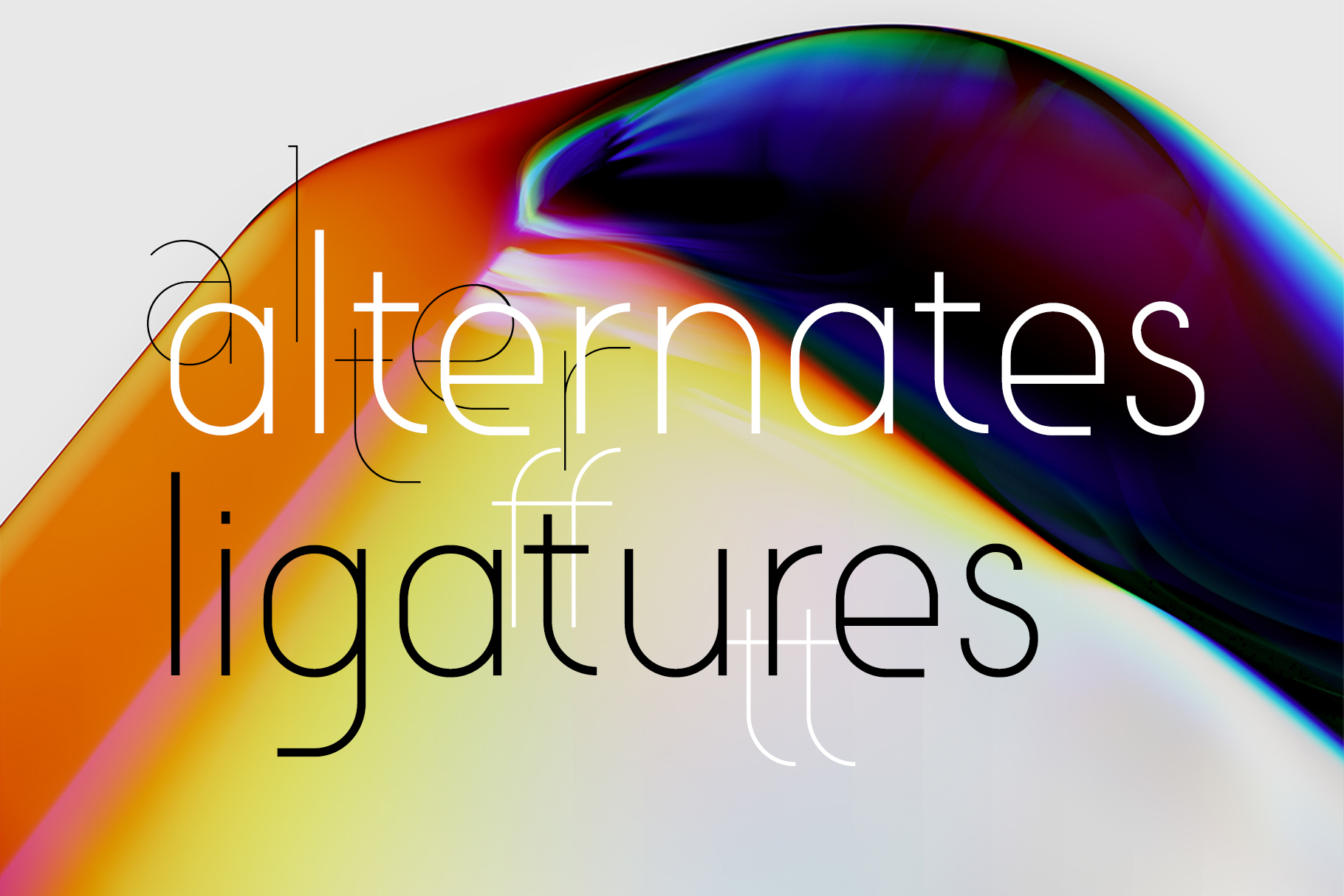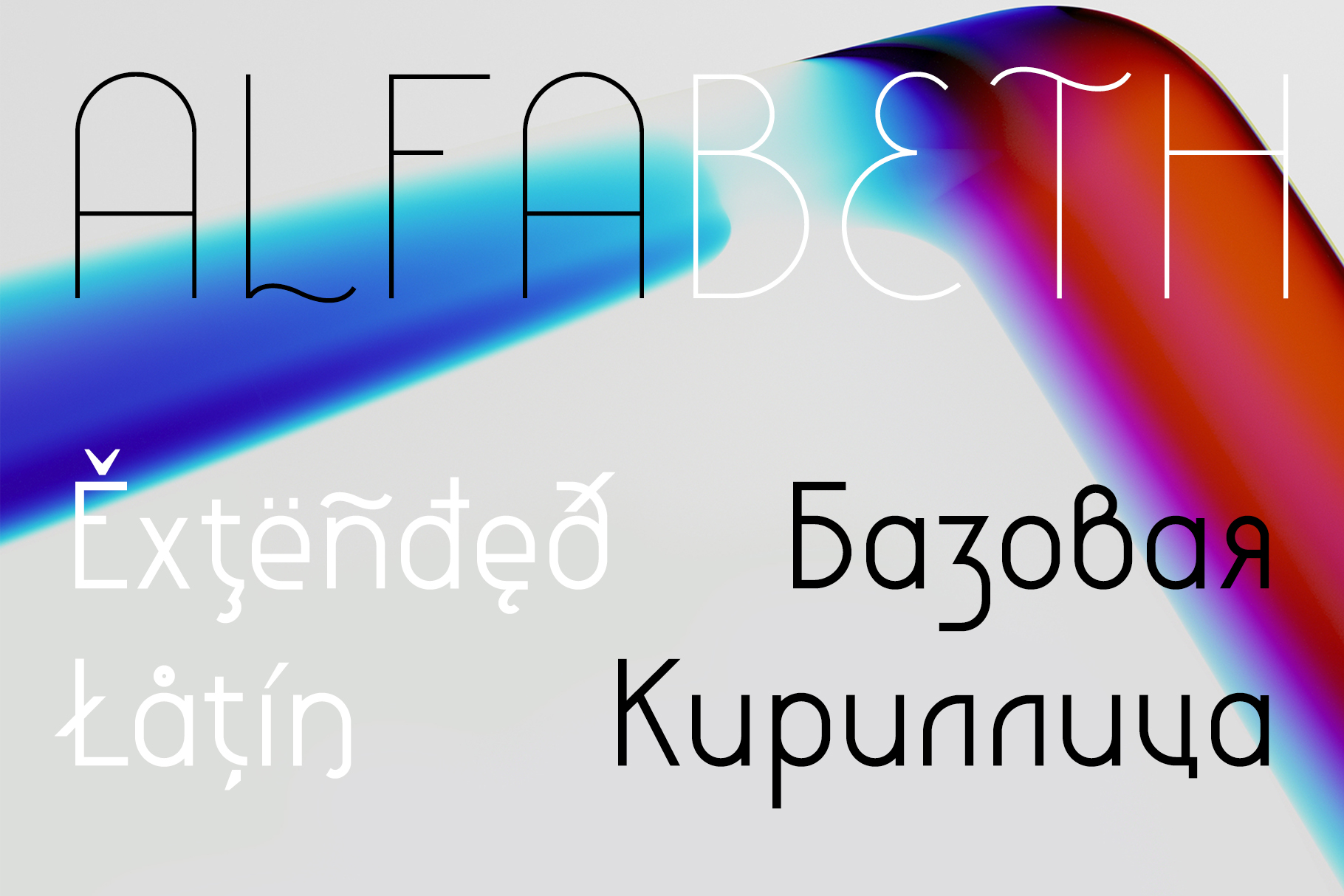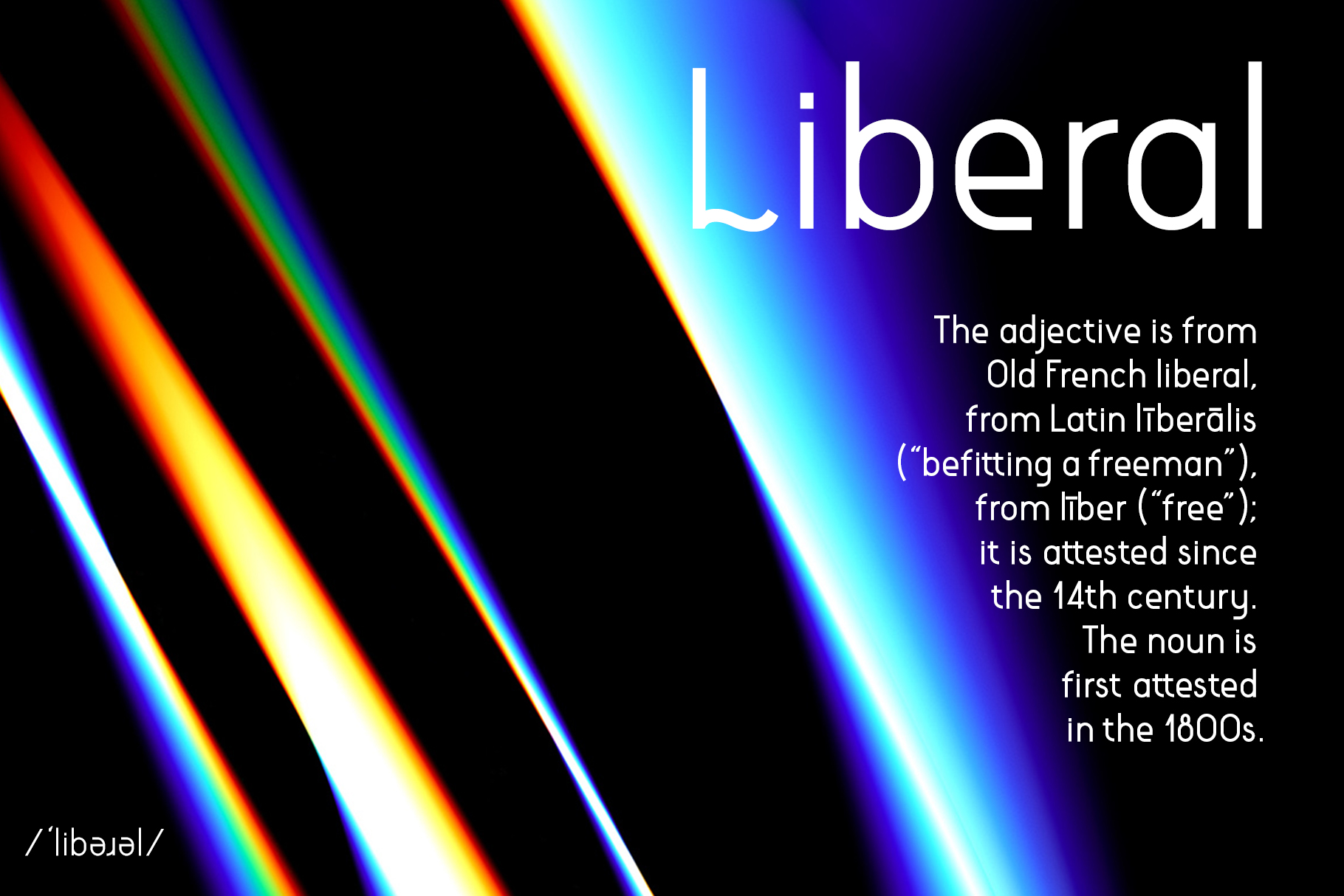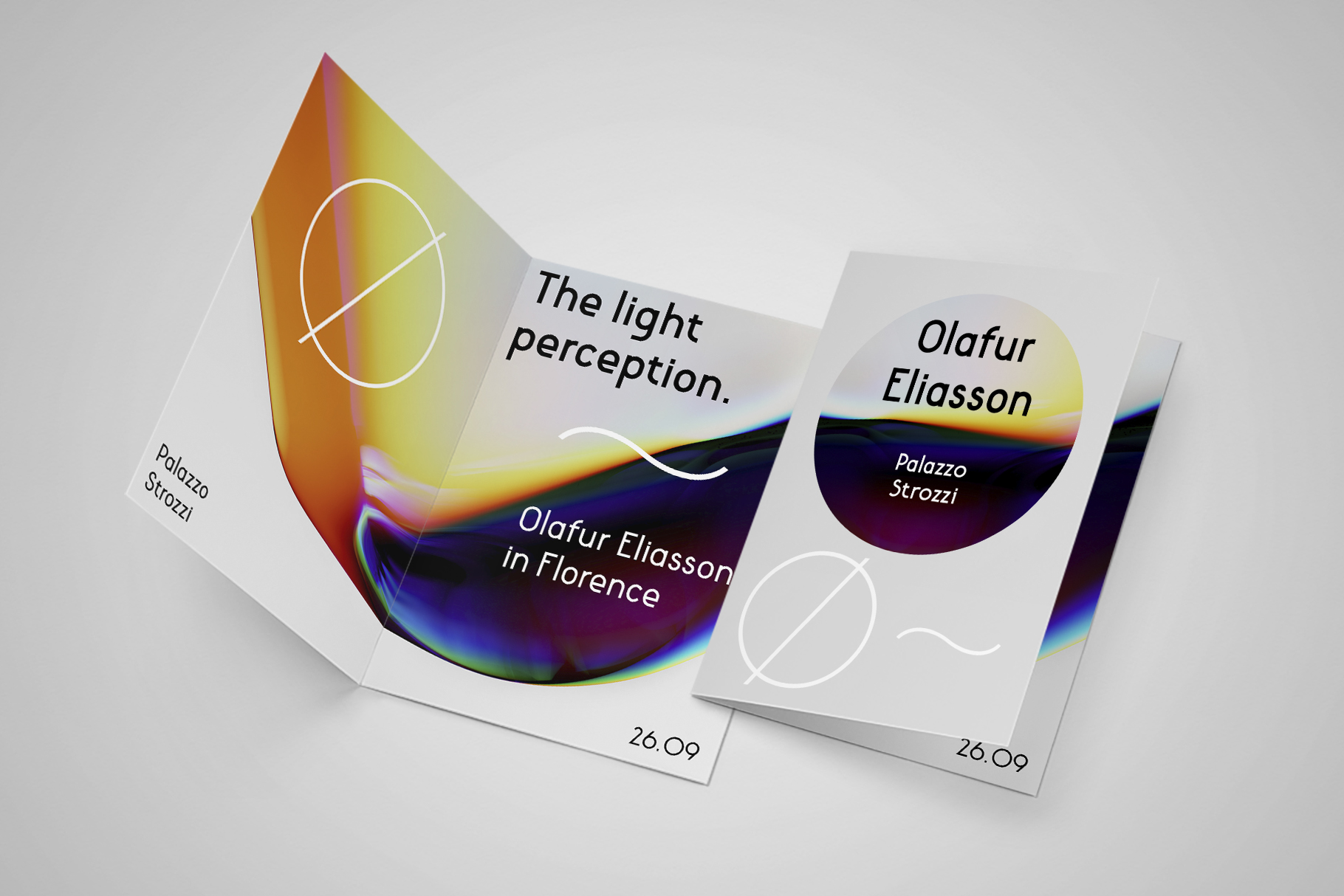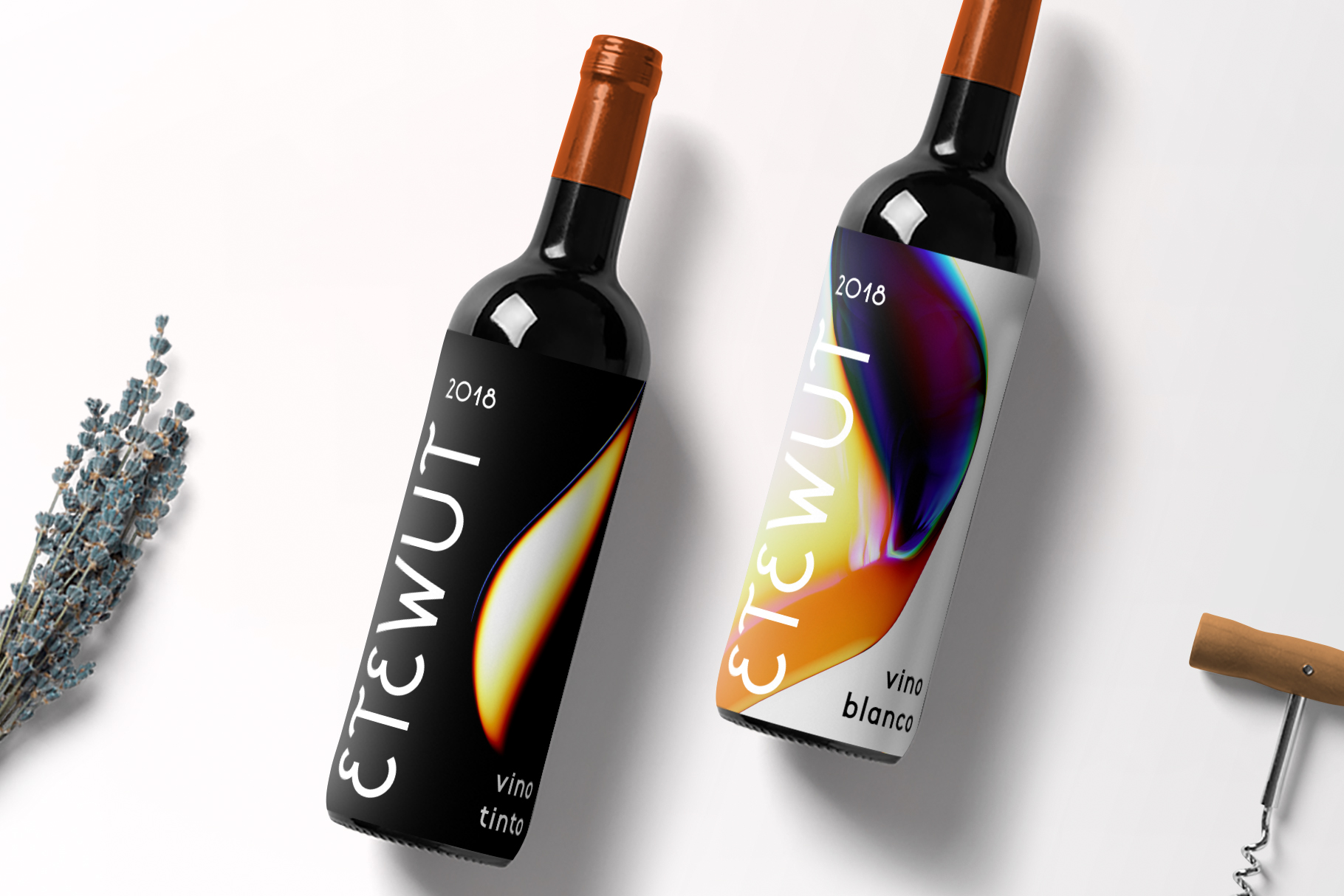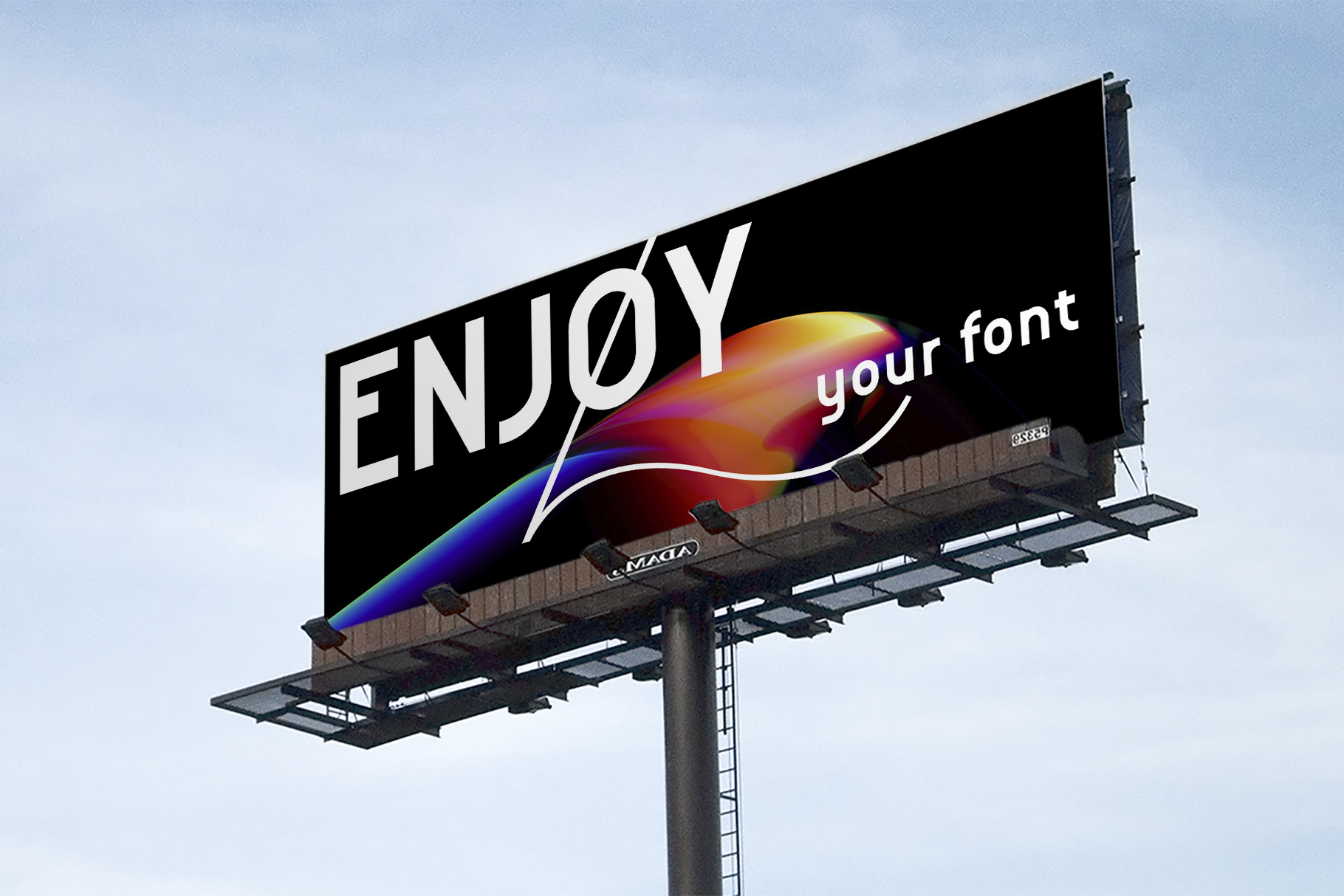
Introduction to Liberal Font
You know that moment when you’re working on a creative project and you need the perfect font to tie everything together? The one that makes your design pop and leaves a lasting impression on your audience? For many designers, that font is the Liberal Font. Its clean and condensed sans serif design makes it perfect for displays or body text, and its sleek aesthetic can anchor your designs in a modern and intriguing way.
With the Liberal Font, you have a valuable design resource at your fingertips. Whether you’re working on a high-quality print project or a digital campaign, this font is sure to deliver. And the best part? It’s available for free download, so you can start incorporating it into your creative projects right away. From transparent backgrounds to bold typography, the Liberal Font is a versatile tool that can help you bring your vision to life.
Key Features of Liberal Font
- Features a transparent background for seamless integration into various designs
- Comes in a single weight, making it easy to use in a wide range of applications
- Size: Optimized for use in body text, with font sizes ranging from 10 to 24 points
- Perfect for those who value individuality and freedom of expression, aligning with the spirit of a liberal approach to design
Honest Review: Liberal Font
- ✨ Unique and creative design that adds a touch of elegance to any project
- ✨ Supports various languages and font styles
- ✨ Has a transparent background, making it easy to use in creative projects
However, I did encounter a few limitations with the Liberal Font. Specifically:
- ⚠️ Limited font sizes and weights available
- ⚠️ Not optimized for web use, which can lead to font rendering issues
Overall, the Liberal Font is a solid choice for designers looking for a unique and high-quality font. While it may have some limitations, its creative design and free download make it a valuable addition to any design resource library.
Liberal Font
The Liberal Font is a high-quality design resource that offers a free download with a transparent background. It’s perfect for creative projects that require a clean and modern look.
To get the most out of the Liberal Font, experiment with different font sizes and styles. You can also use it in combination with other design elements, such as graphics and images, to create a unique and eye-catching design.
The Liberal Font is perfect for a variety of creative projects, including business cards, brochures, and social media graphics. Its clean and modern design makes it ideal for any project that requires a professional and sophisticated look.
Alternatives to Liberal Font
When to use: Corporate branding, business cards, or any design that needs a professional and sleek feel. Compared to Liberal Font, Carolyna Pro has a more contemporary look and is ideal for designs that require a clean and simple aesthetic.
Great Vibes is a beautiful, handwritten font that’s perfect for creative projects requiring a touch of whimsy and personality. It’s available for free download and can be used for both personal and commercial projects.
When to use: Social media graphics, posters, or any design that needs a fun and playful feel. Compared to Liberal Font, Great Vibes has a more casual and relaxed look, making it ideal for designs that require a laid-back vibe.
Pacifico is a beautiful, serif font that’s perfect for creative projects requiring a touch of sophistication and elegance. It’s available for free download and can be used for both personal and commercial projects.
Can I use the Liberal Font with a transparent background?
Yes, the Liberal Font has a transparent background, making it ideal for use with images, videos, and other design elements. The font is also designed to be highly legible, even when used with complex backgrounds or layered design elements.